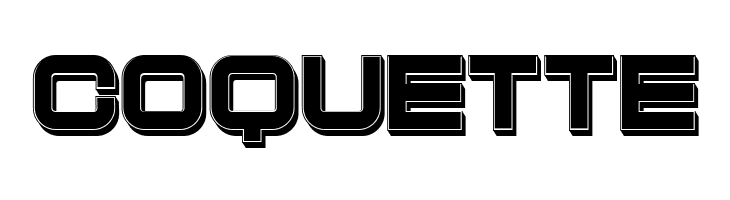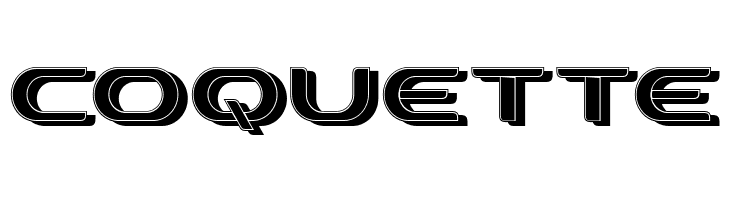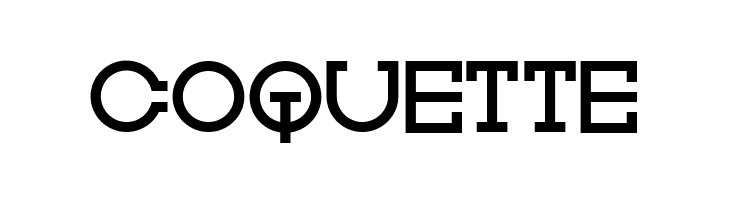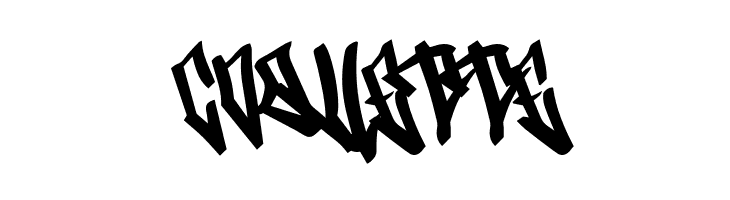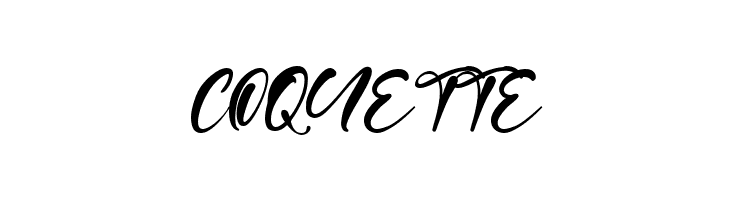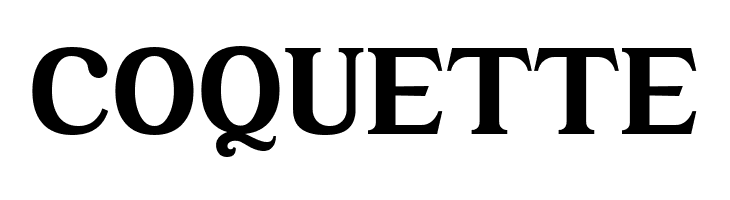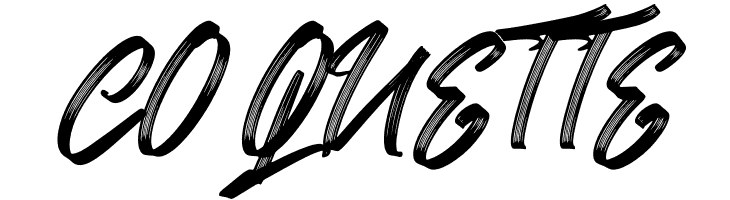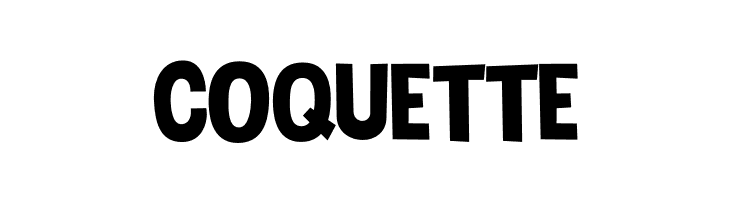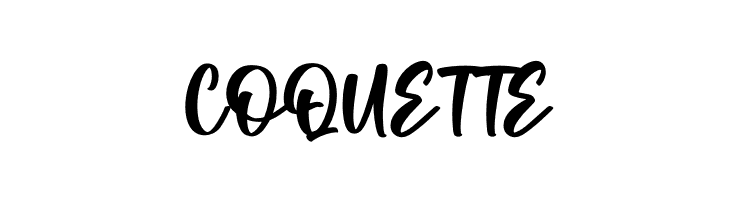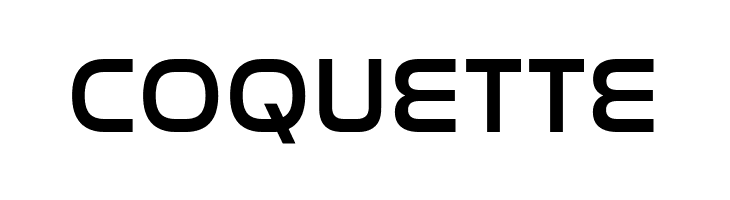
A bold, three-dimensional font with geometric lines and intricate detailing.
An elegant script font with graceful loops and high contrast strokes.
A bold, geometric font with a modern, industrial design.
A playful, whimsical script font with a handwritten feel and charming embellishments.
A bold, futuristic font with a geometric, three-dimensional style.
A bold, futuristic font with geometric shapes and a three-dimensional effect.
A bold, geometric font with modern and artistic elements.
A bold, hollow font with a three-dimensional effect and vintage-modern style.
A bold, geometric font with a 3D effect, ideal for impactful designs.
A bold, three-dimensional font with geometric shapes and a modern feel.
An elegant, flowing script font with interconnected letterforms and artistic flair.
A dynamic and fluid script font with elegant, flowing letterforms.
A bold, playful font with rounded, bubbly characters and a whimsical style.
A bold, brush-style font with dynamic and expressive strokes.
An elegant, flowing script font with a sophisticated, handwritten style.
A bold, flowing script font with expressive, interconnected strokes.
A bold, italic script font with a lively, handwritten style.
An elegant, flowing script font with a sophisticated, handwritten style.
Playful handwritten font with rounded edges.
A bold, geometric font with a modern, angular design.
A bold, high-contrast serif font with dramatic strokes and elegant curves.
A bold, outlined serif font with a classic yet modern appeal.
An elegant italic outline font with dynamic slant and clean lines.
A playful, cursive script font with whimsical loops and embellishments.
A decorative script font with elegant loops and swirls, perfect for artistic projects.
A modern, geometric font with smooth curves and a minimalist design.
A playful, bold handwritten font with smooth curves and rounded edges.
A playful and elegant script font with modern flourishes.
A bold, graffiti-style font with angular, dynamic letterforms.
A graceful script font with flowing, interconnected letters and elegant swashes.
A classic serif font with bold strokes and elegant curves, exuding timeless elegance.
A bold, flowing script font with a handwritten feel.
A flowing, cursive font with elegant, sweeping strokes and a sophisticated appearance.